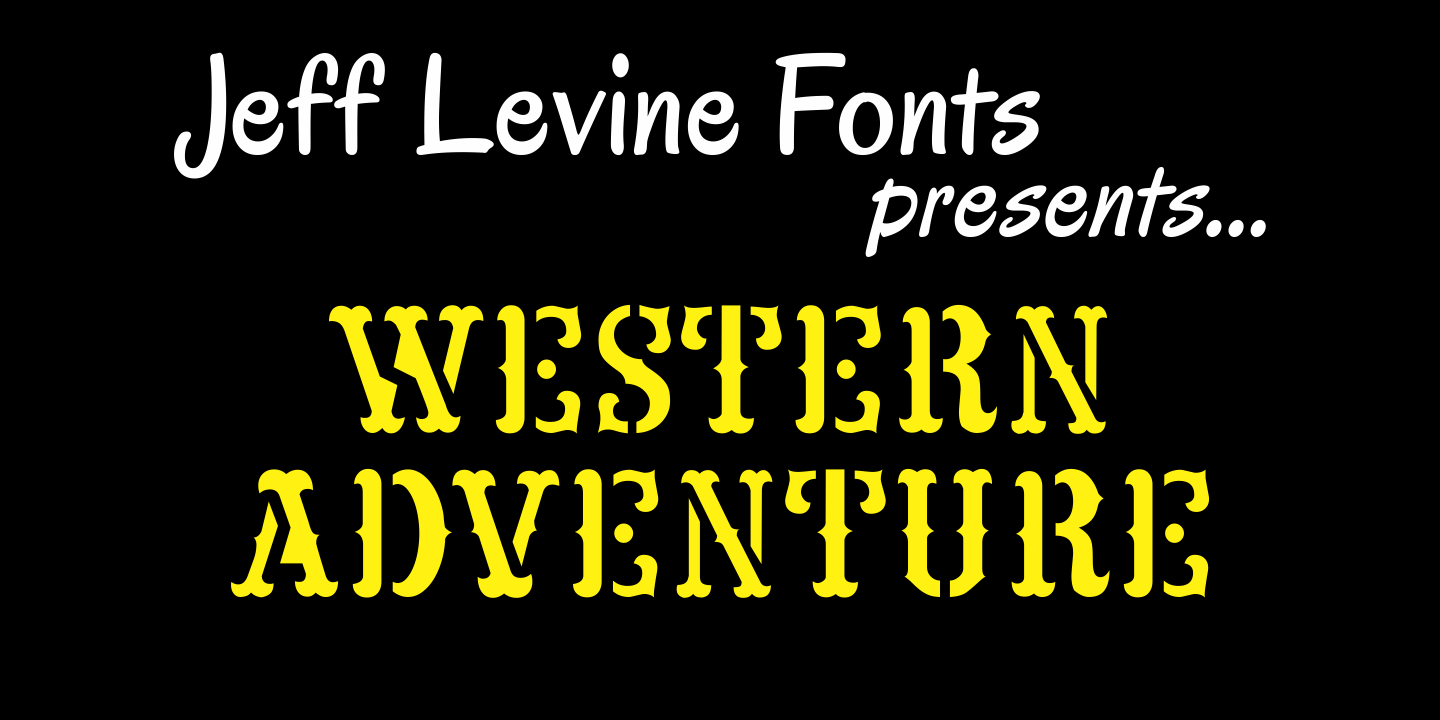
Western Adventure
Western Adventure JNL is based on a classic lettering stencil of the 1950s.
Part of a growing series of such stencil fonts by Jeff Levine, it's a perfect complement to Buckdance JNL.